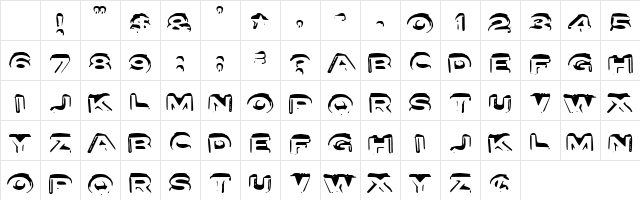
Complete Letter Set A Regular glyph index. Displaying only characters natively supported by Letter Set A Regular font.
Letter Set A is a composed and adaptable typeface that performs quietly and consistently across a wide range of design contexts.